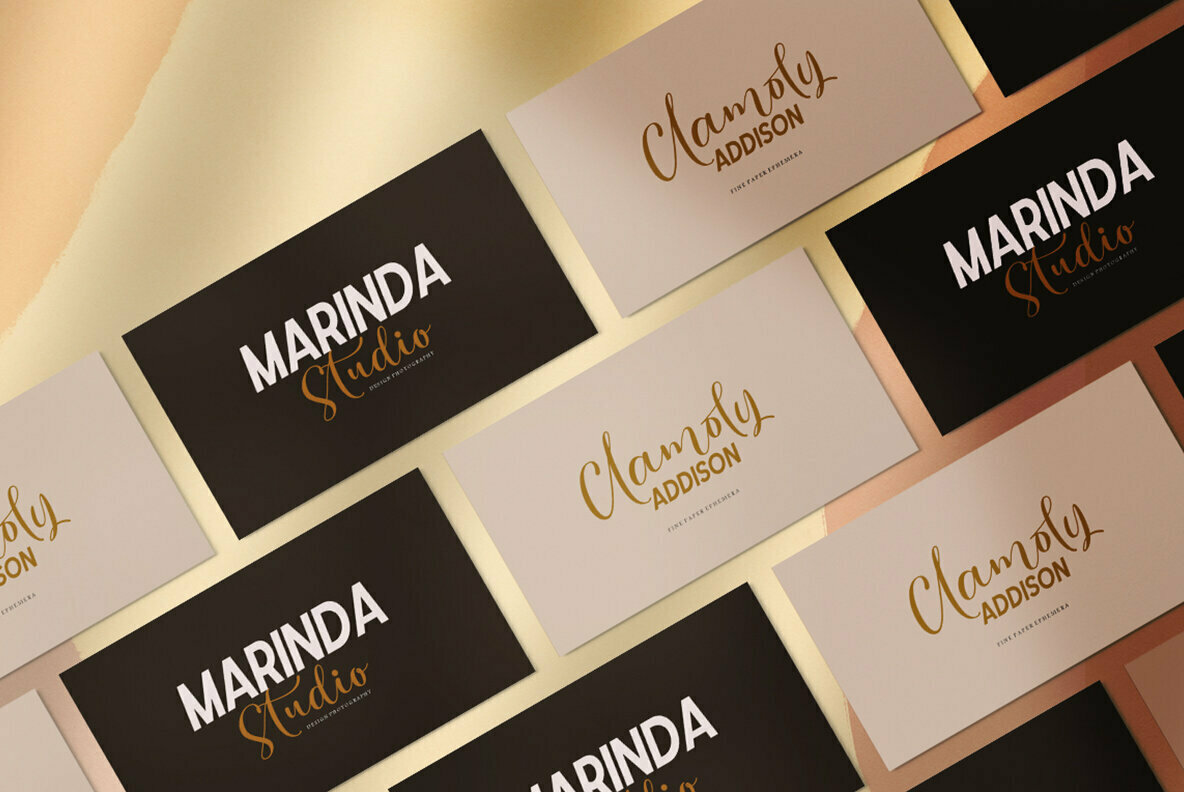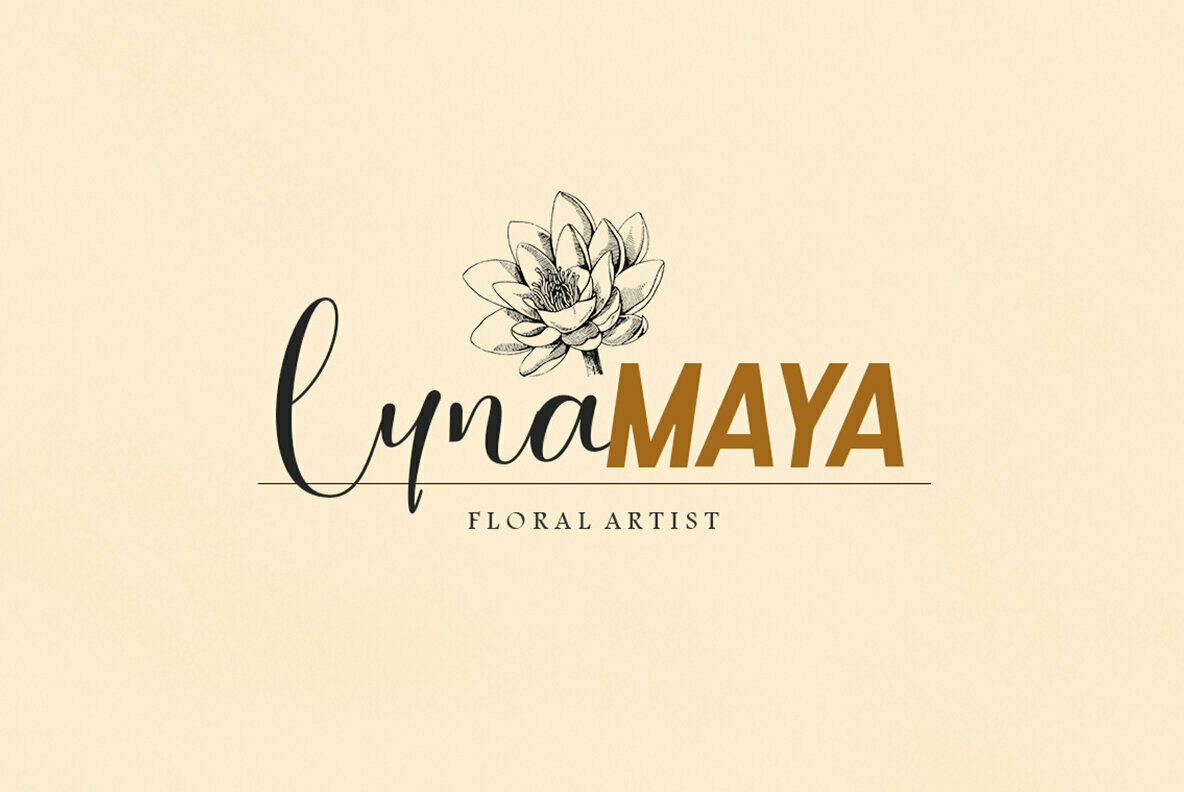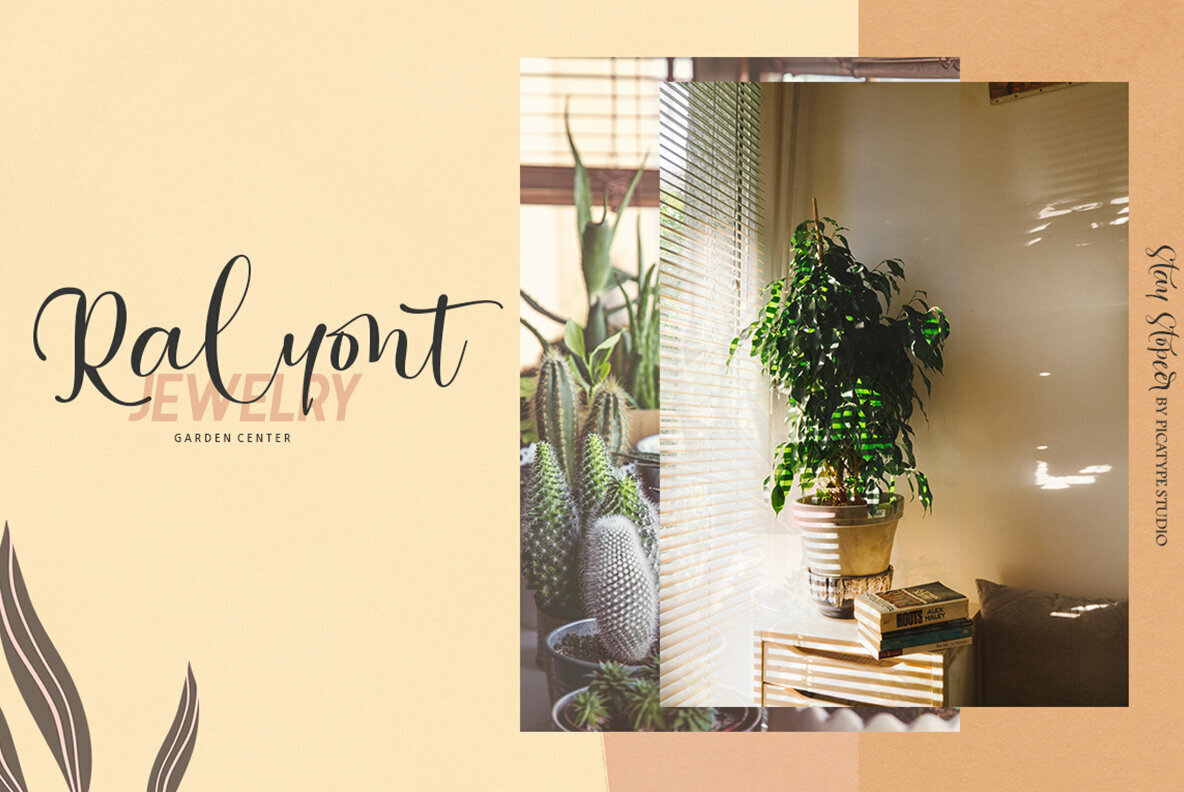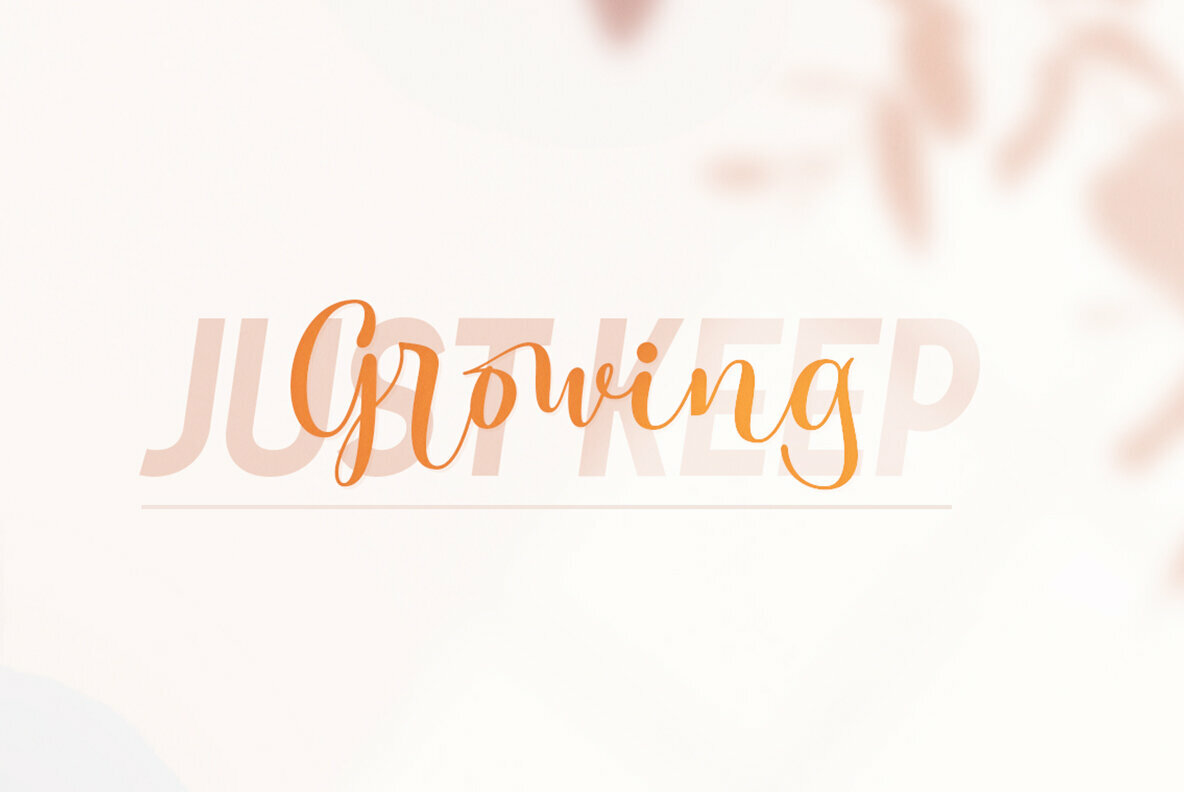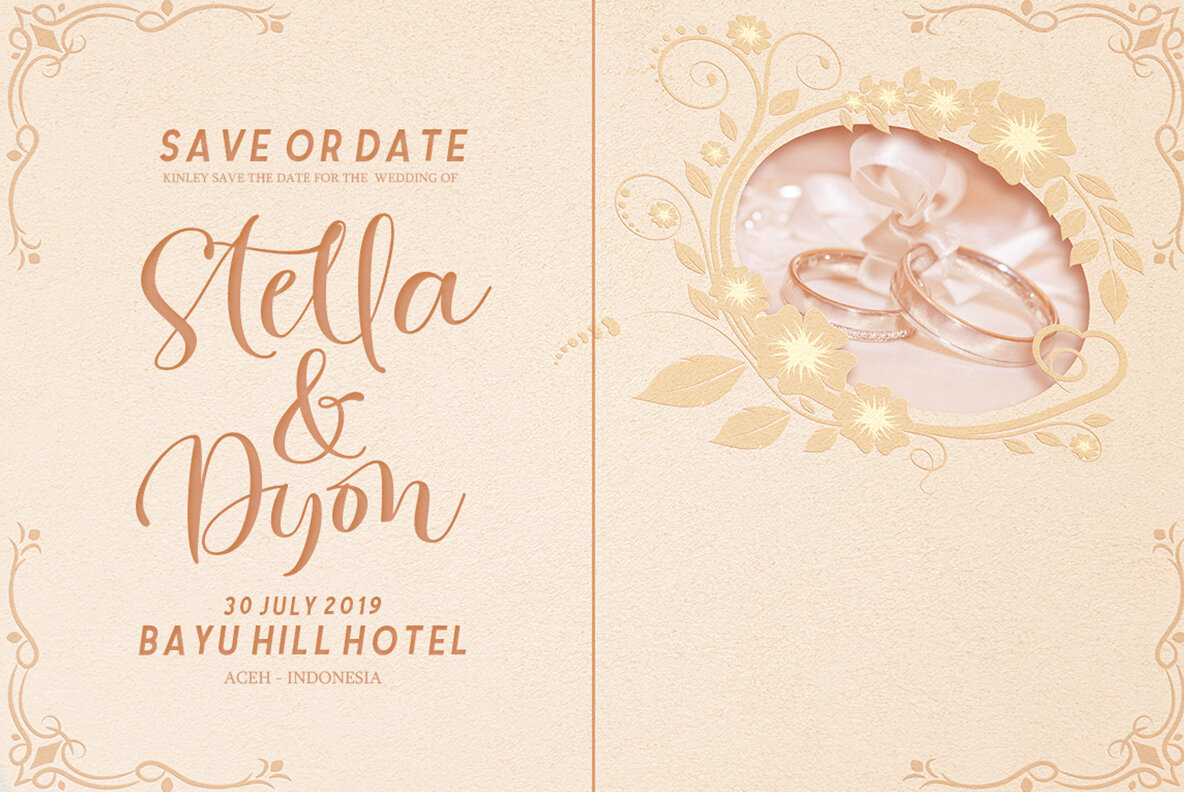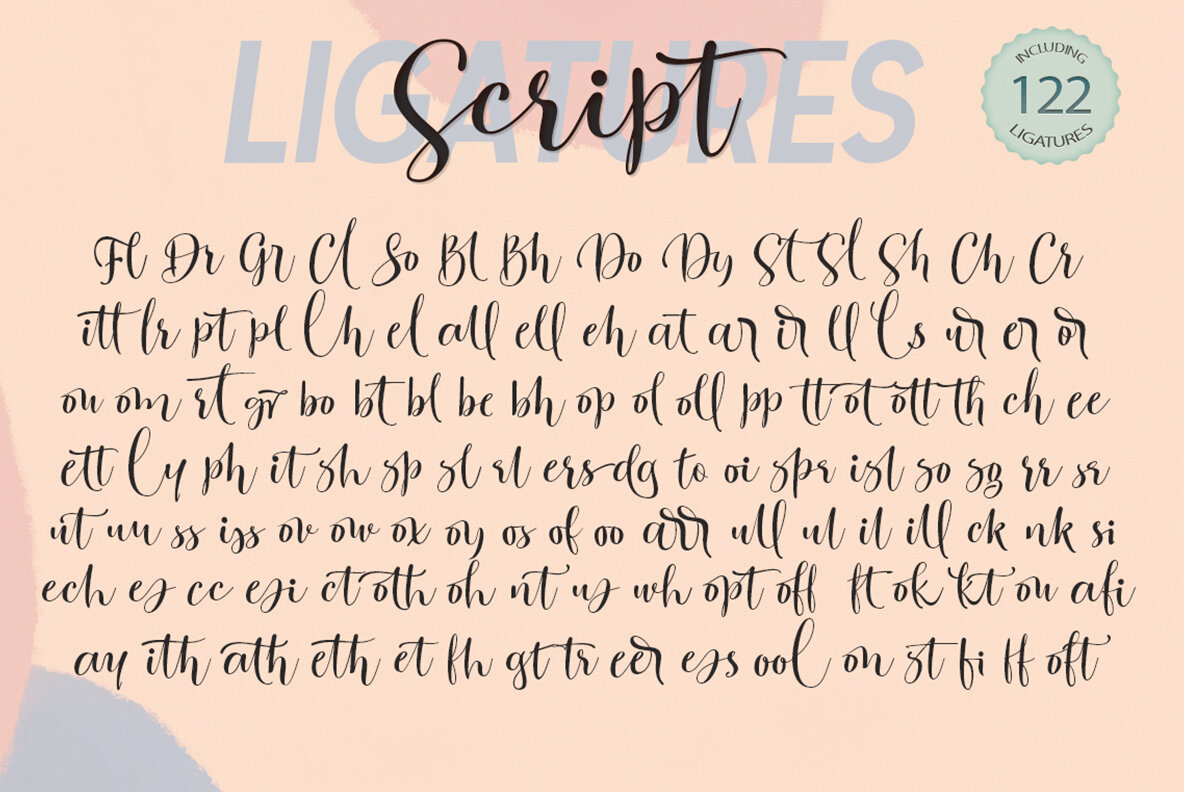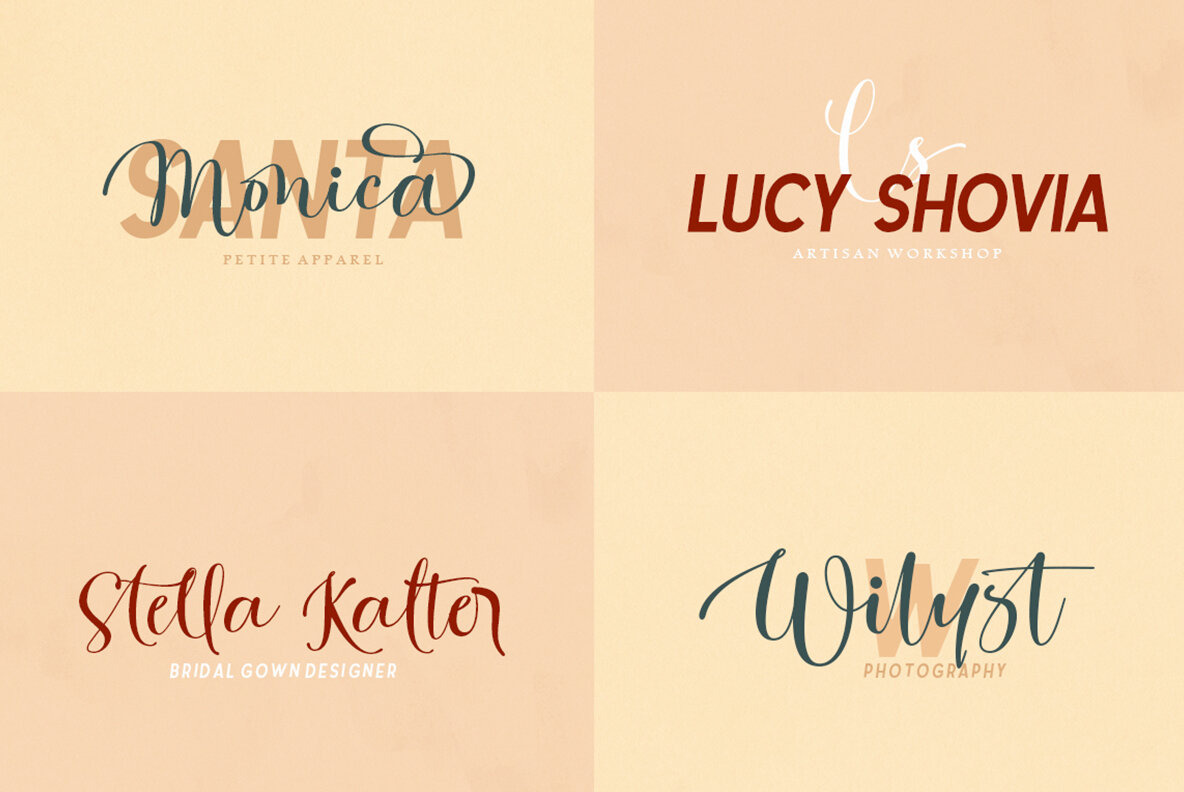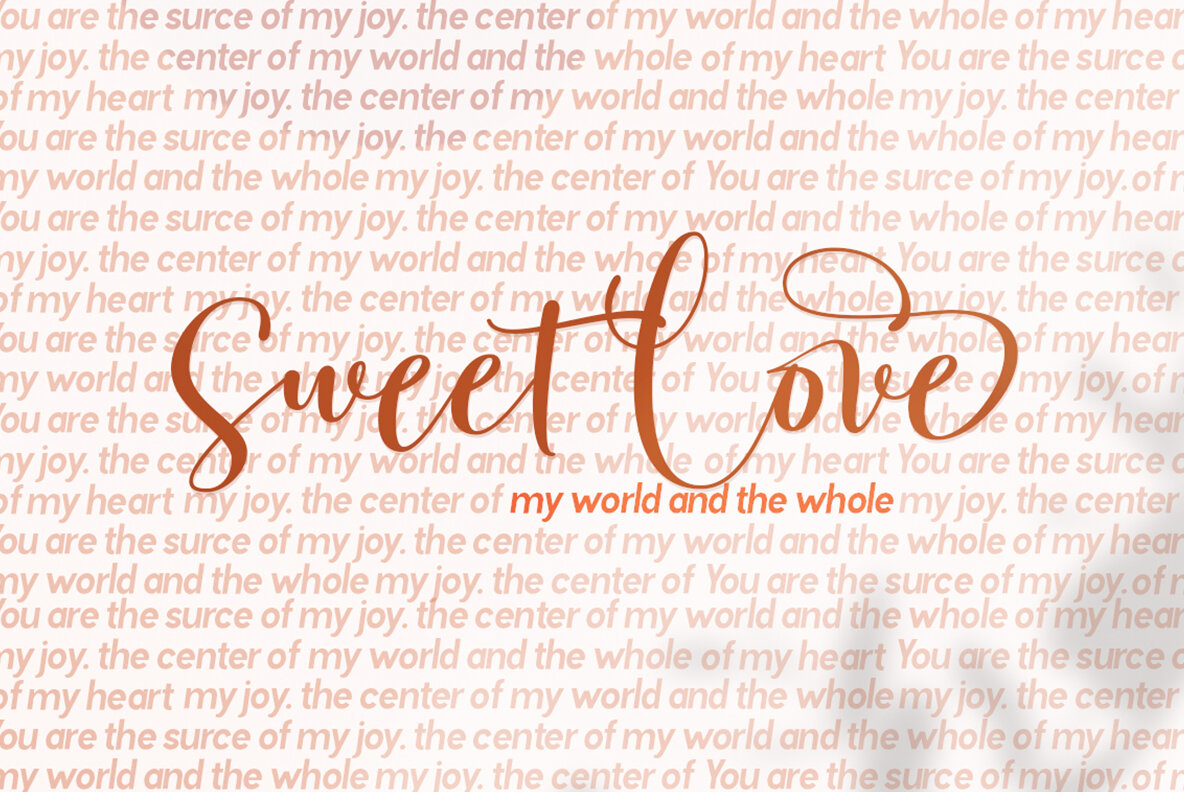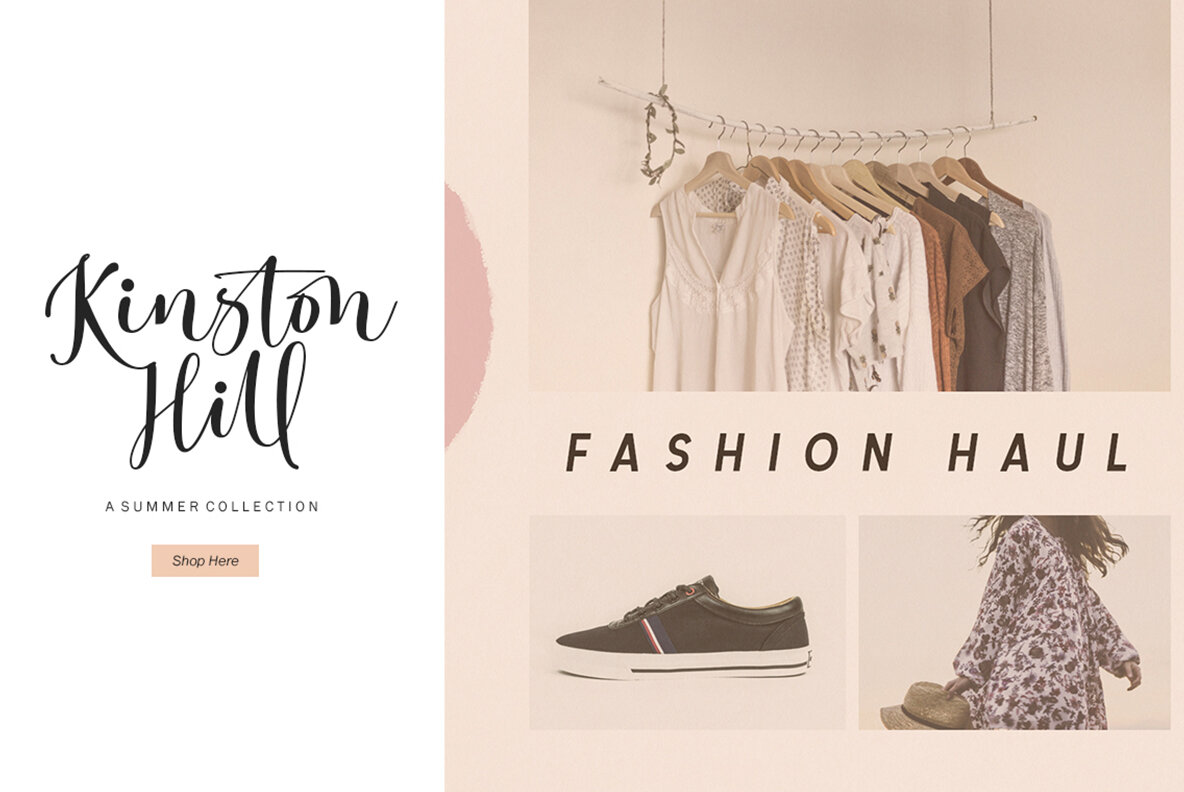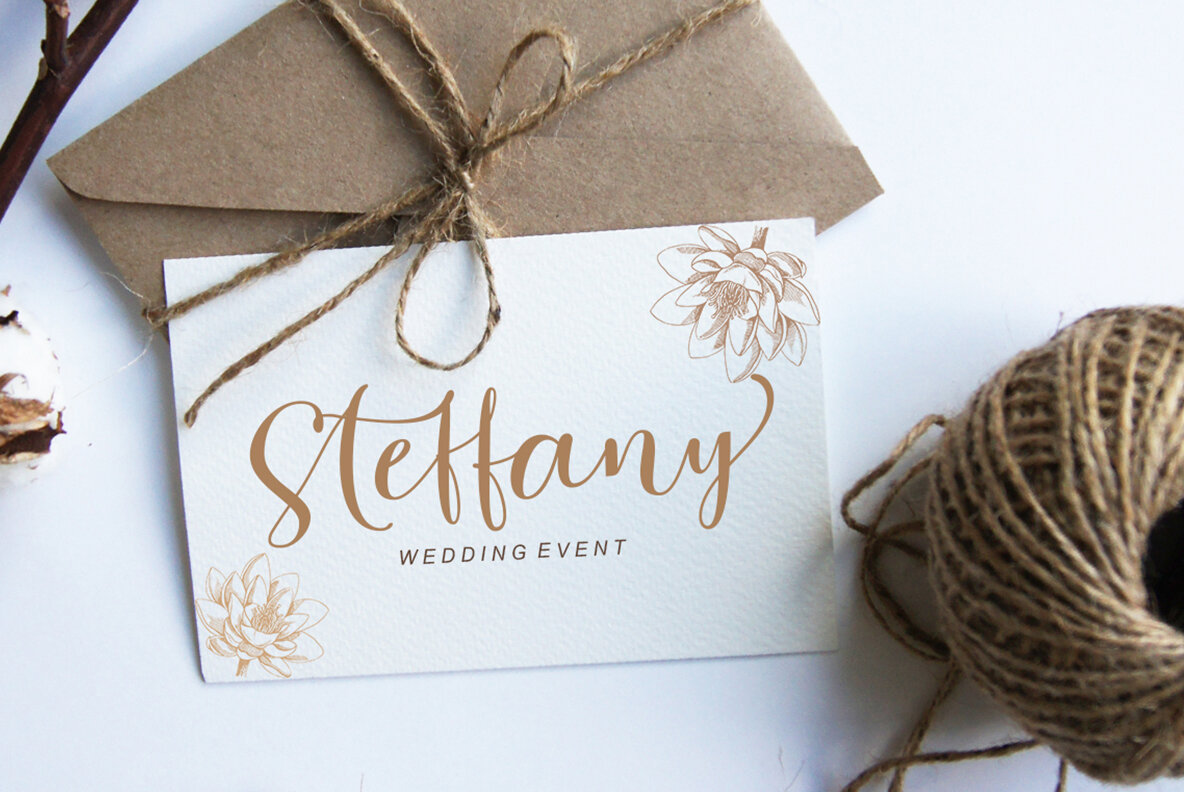
Stay Stopeer Font
Stay Stopeer offers a sophisticated blend of modern script calligraphy and elegant, smooth curves that define its upscale aesthetic. This versatile font duo is perfect for elevating visual appeal in logos, posters, wedding invitations, blog posts, and social media content, ensuring each project is imbued with a touch of class. The Stay Stopeer Script enhances your designs with over 120 ligatures, providing a handmade feel with seamless alternatives for each letter. Stay Stopeer incorporates OpenType stylistic alternates and ligatures, supporting most Western languages. For maximum compatibility, use in software supporting OpenType features, such as Adobe Illustrator, Adobe InDesign, CorelDraw, and newer versions of Microsoft Word. Full access to extra characters is enabled through PUA Unicode, facilitating use without specialized design software. Mac and Windows users can effortlessly access these characters through Font Book and Character Map, respectively.Stay Stopeer: A Harmonious Font Duo for Elegant Design